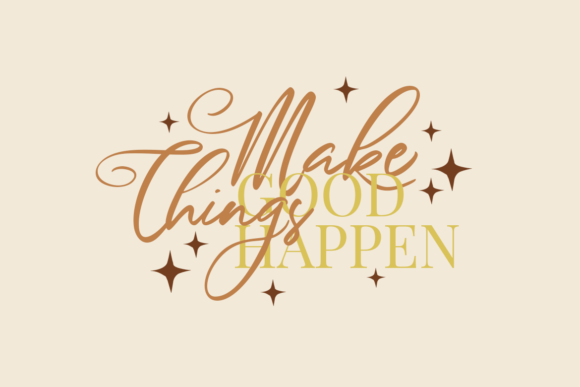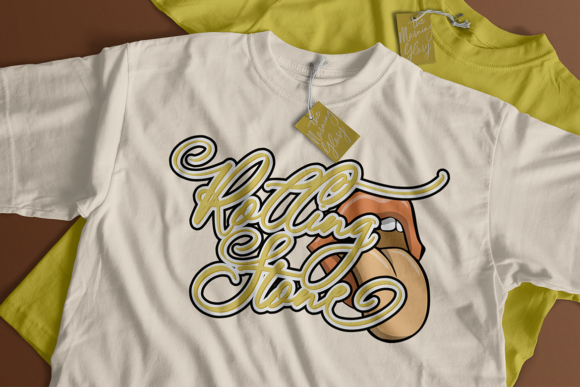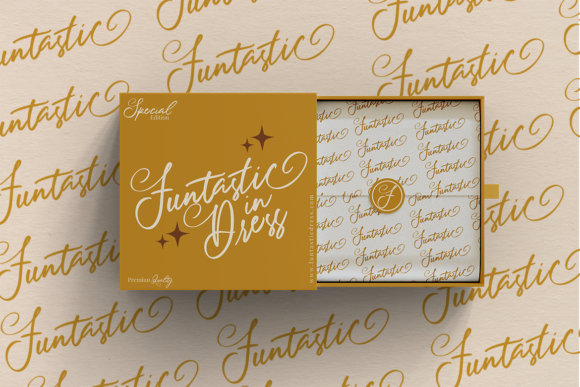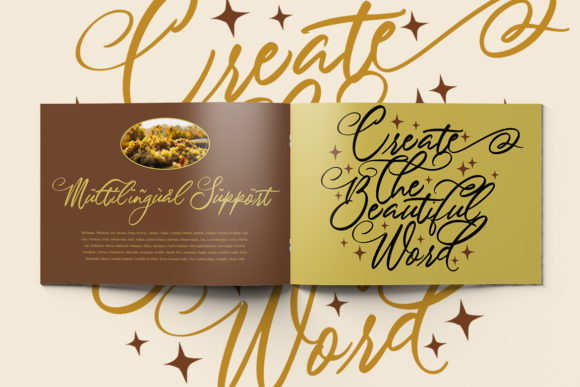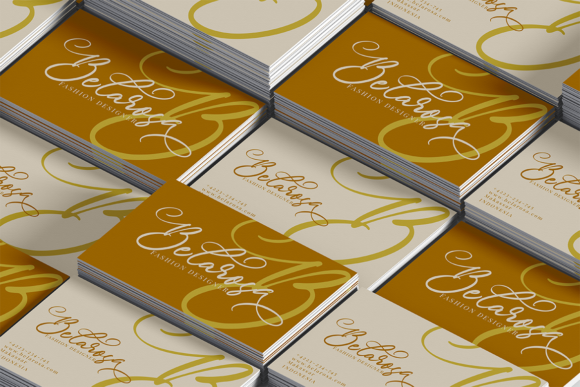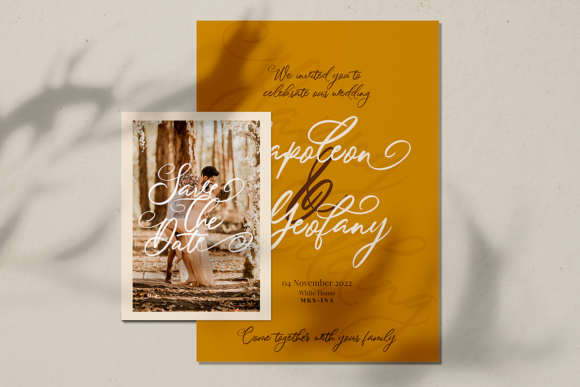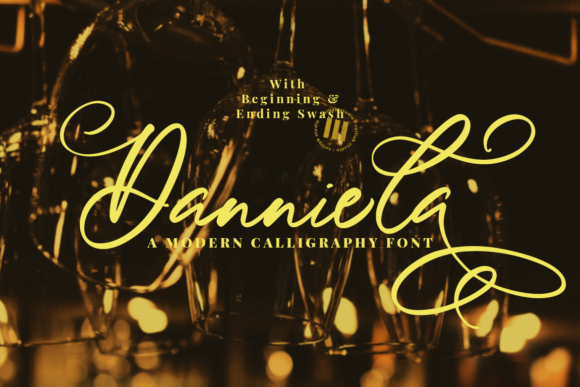
Introducing Danniela Font: The Perfect Addition to Your Creative Projects
Are you a designer, crafter, or DIY enthusiast looking for a unique and charming font to elevate your creative projects? Look no further than Danniela Font! This lovely script font features playful characters that seem to dance along the baseline, adding a touch of whimsy and personality to any design.
What Makes Danniela Font So Special?
Danniela Font is a one-of-a-kind script font that boasts charming, cursive characters with a playful flair. The font’s design is carefully crafted to create a sense of movement and energy, making it perfect for projects that require a touch of elegance and sophistication. Whether you’re working on a branding project, crafting a handmade card, or designing a custom sign, Danniela Font is sure to make your design stand out.
One of the best features of Danniela Font is its PUA (Private Use Area) encoding. This means that you can access all of the glyphs and swashes with ease, giving you complete creative control over your design. With PUA encoding, you can effortlessly insert special characters, ligatures, and ornaments into your text, taking your design to the next level.
Danniela Font is the perfect addition to any creative project. Its playful, cursive characters make it ideal for:
- Handmade cards and invitations
- Custom signs and banners
- Digital art and illustrations
- Crafting and scrapbooking projects
Tips for Using Danniela Font
To get the most out of Danniela Font, here are a few tips to keep in mind:
- Use it as a headline font to add a touch of elegance and sophistication to your design
- Pair it with a simple sans-serif font for a striking contrast
- Don’t be afraid to get creative and try out new and unusual design ideas!
Why Designers and Crafters Love Danniela Font
Danniela Font has quickly become a favorite among designers and crafters, and for good reason. Its unique and charming design makes it the perfect addition to any creative project. Here are just a few reasons why designers and crafters love Danniela Font:
- Its playful, cursive characters add a touch of personality to any design
- Its PUA encoding makes it easy to access all of the glyphs and swashes
- Its versatility makes it perfect for a wide range of creative projects
- Its high-quality design ensures that it will look great in any design